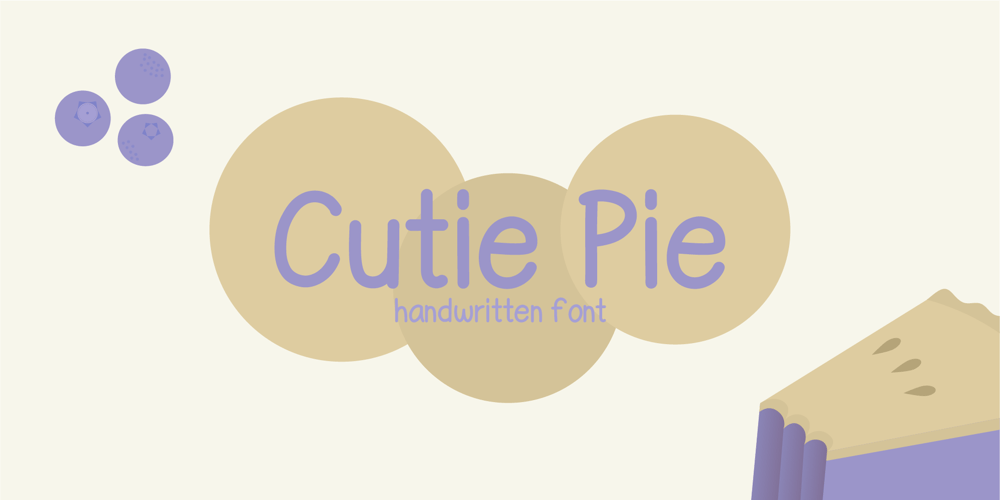
Cutie Pie
Cutie Pie font
Cutie Pie Font Family was designed by Jess J and published by Type Avenue. Cutie Pie contains 1 styles and family package options. This is the cutest font in the galaxy. It’s neat yet adorable! Use it for posters, note-taking, or even cute logo designs. Your imagination is the limit.